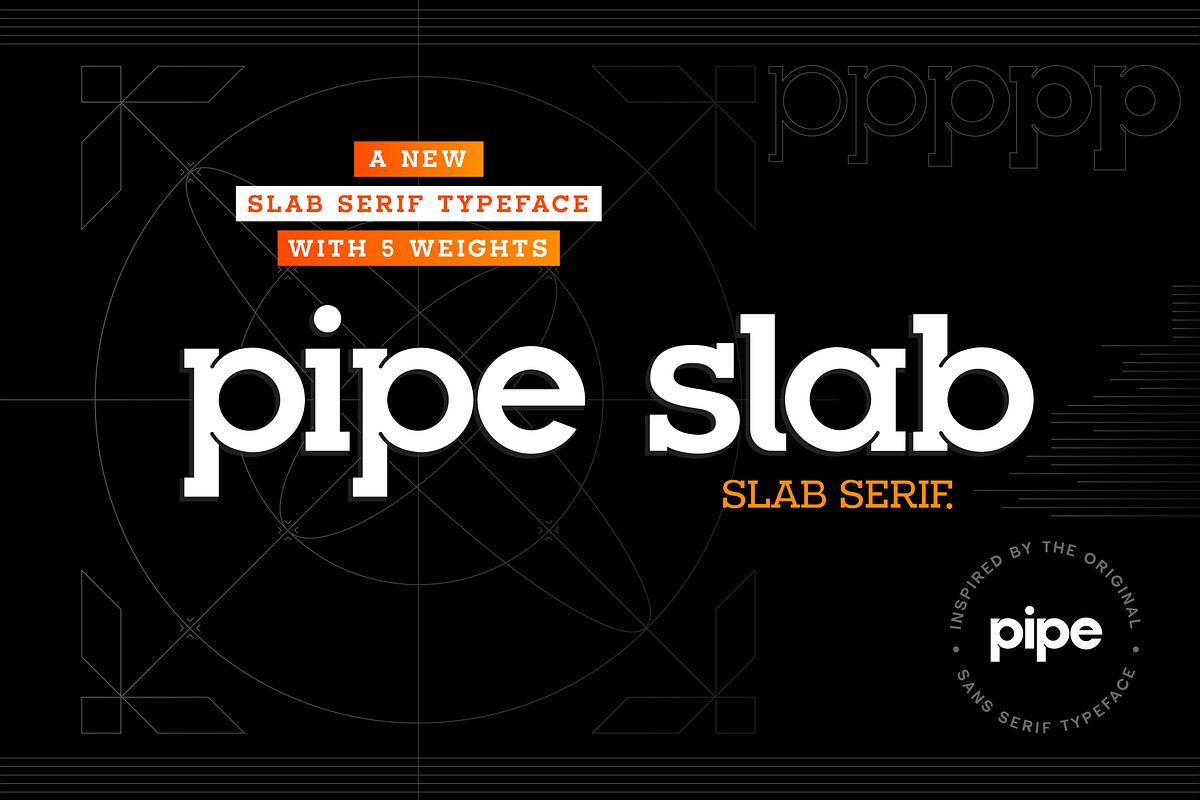
Pipe Slab - Slab Serif Typeface Free Download is a bold and modern slab serif font that features thick, sturdy serifs and a strong, industrial design. Perfect for projects that require a powerful, distinctive typeface, Pipe Slab is ideal for branding, headlines, logos, posters, and any design that needs to make a strong impression.
Pipe Slab - Slab Serif Typeface Free Download adds strength and impact to your typography, making it perfect for use in high-visibility projects where readability and boldness are key. Whether you’re designing for a tech brand, creating promotional materials, or developing striking editorial content, Pipe Slab brings a modern, robust style to your work. Download it today and add some solid character to your next design with Pipe Slab!